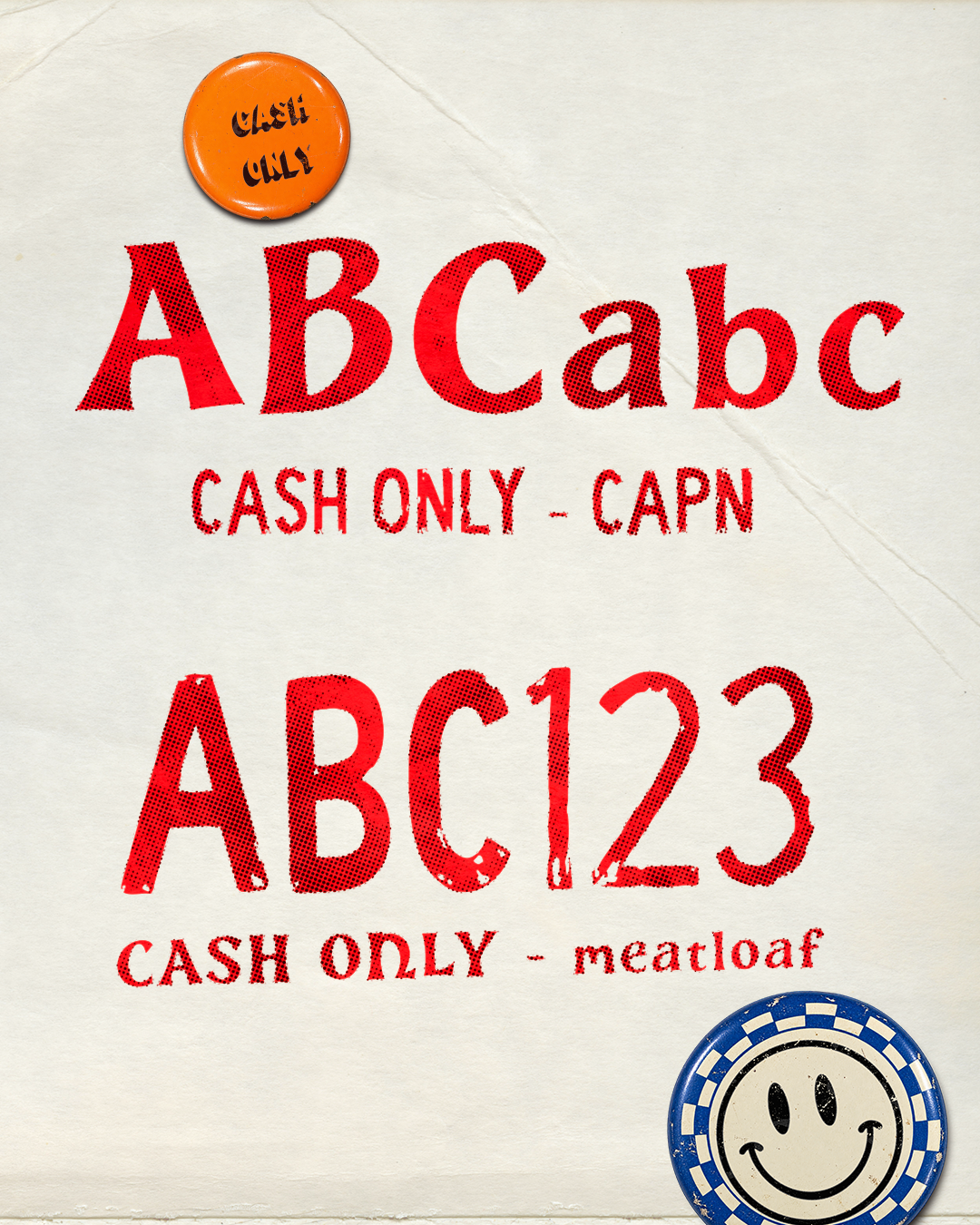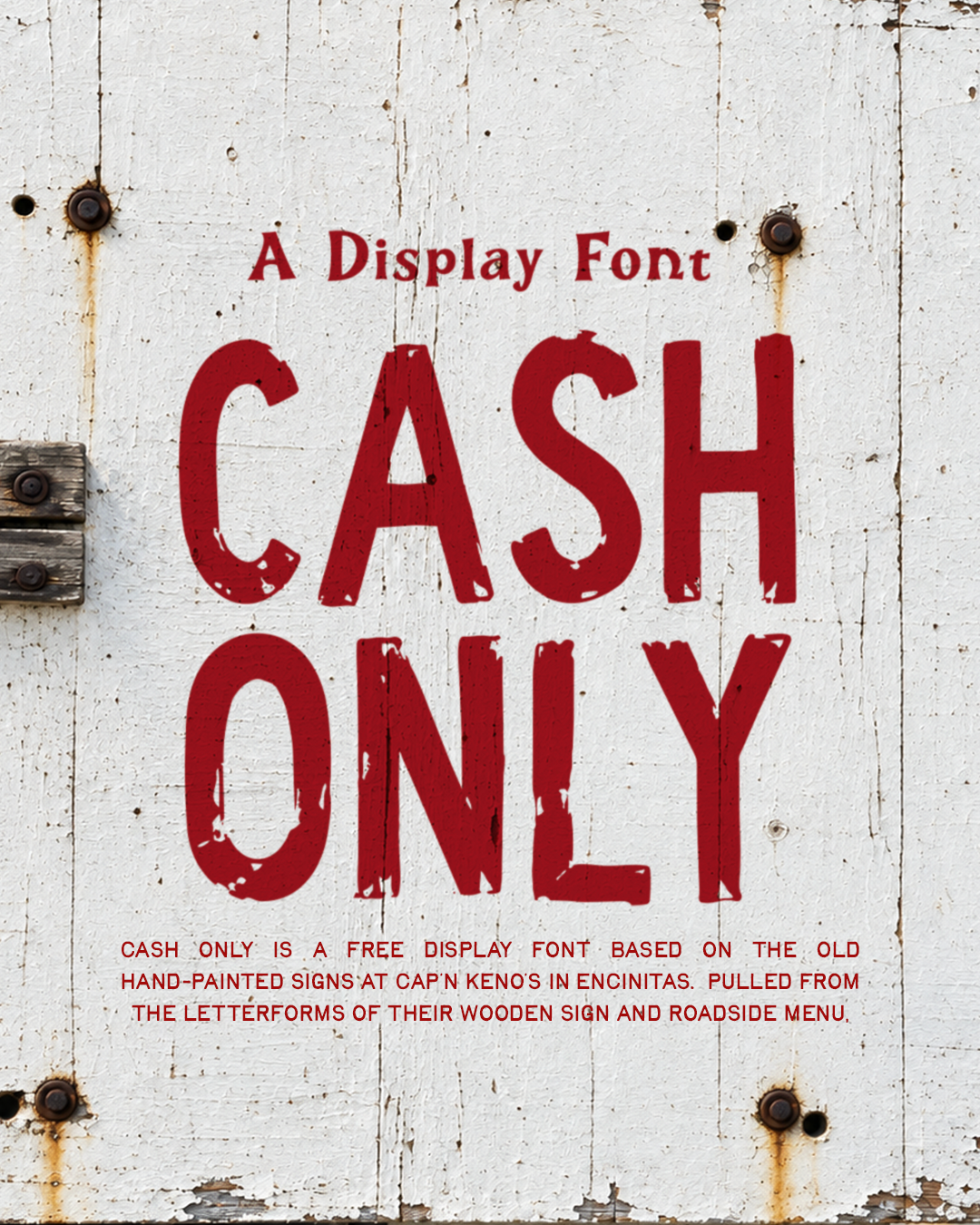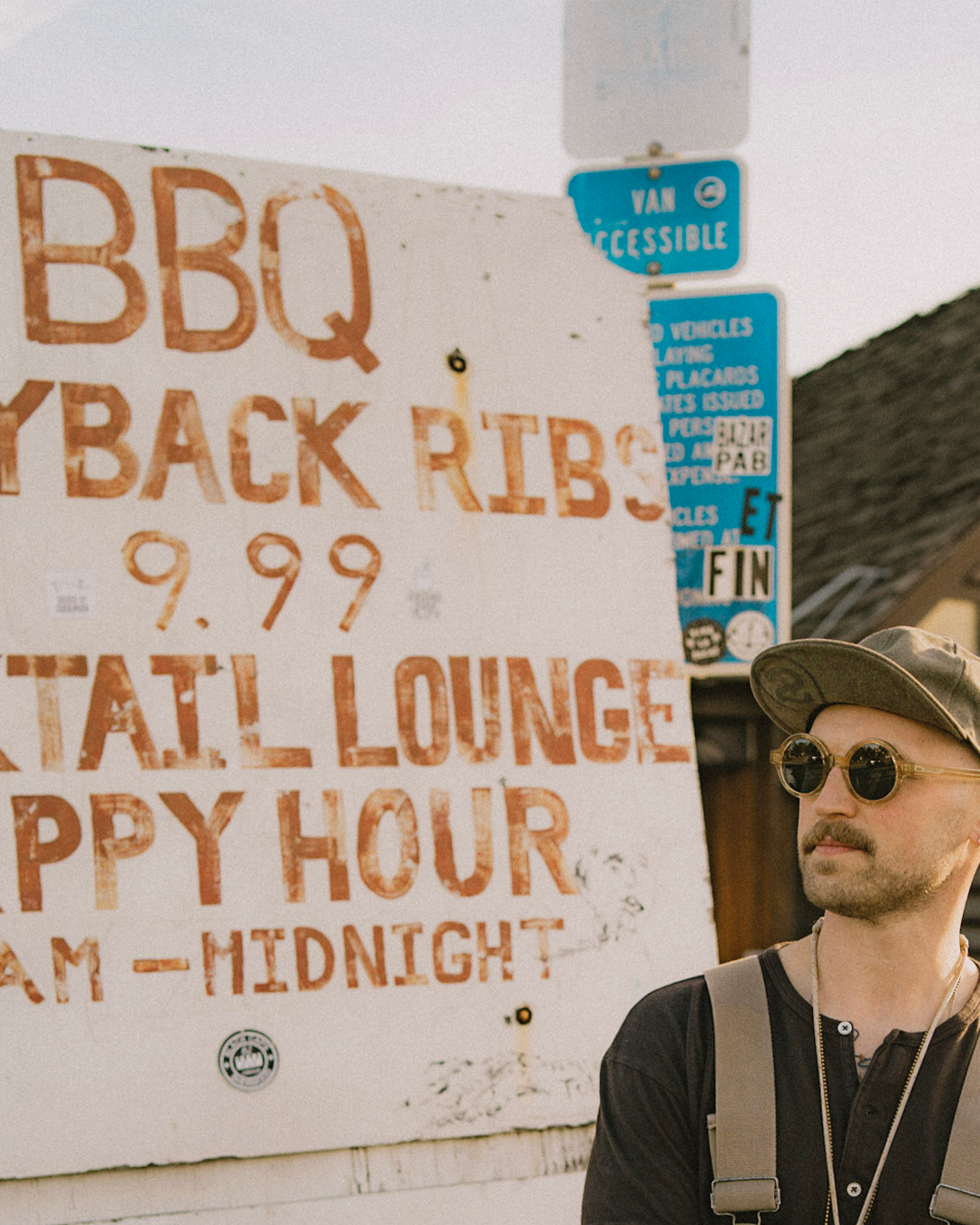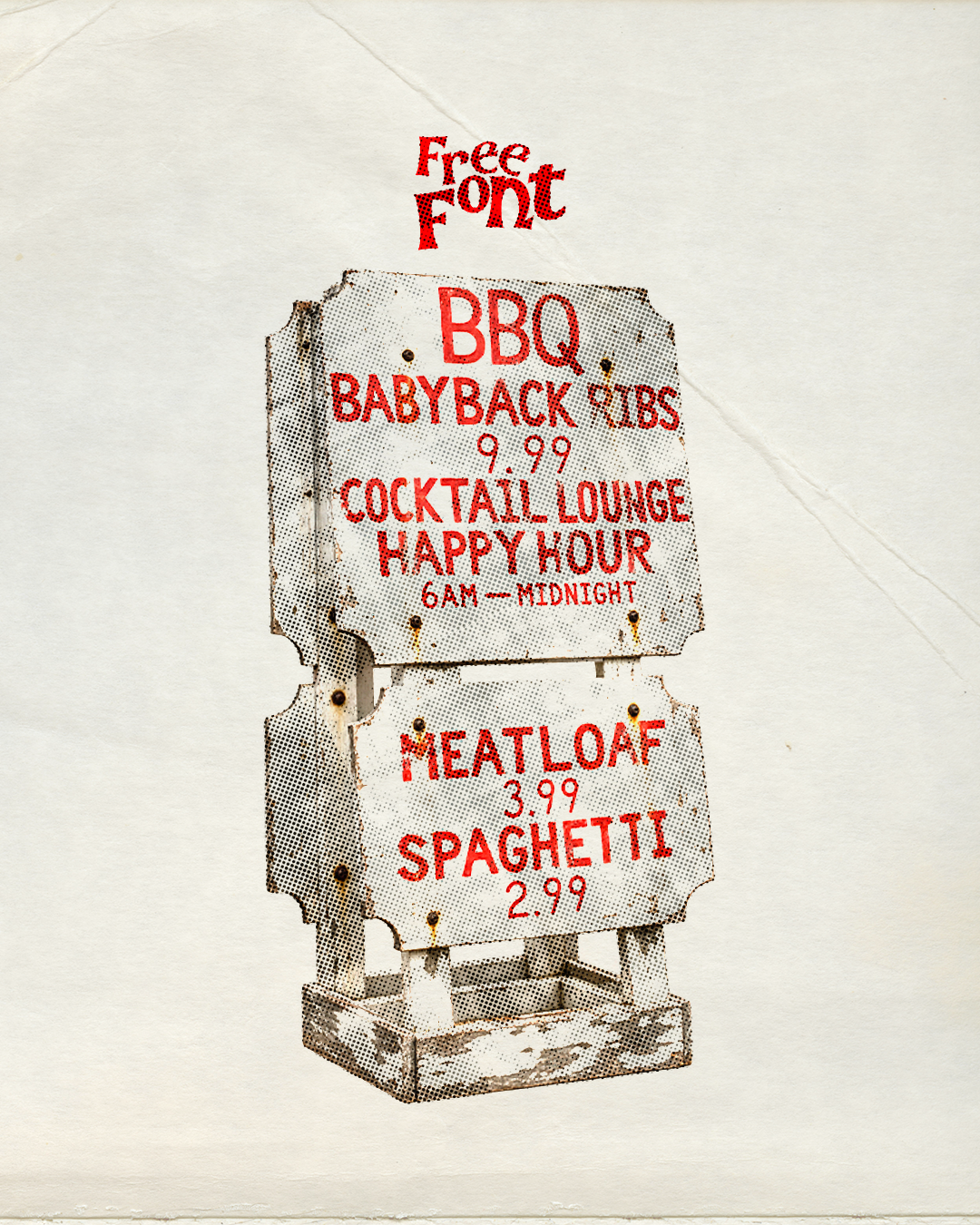
Cash Only is a free hand-drawn display font inspired by the old hand-painted signs at Cap’n Keno’s in Encinitas, California. I pulled the original letterforms from the restaurant’s wooden sign and roadside menu, then used those shapes as the foundation for building out the rest of each typeface.
The download includes three styles: Cash Only Cap’n, based on the lettering from the main wooden sign; Cash Only Meatloaf, based on the thinner, narrower lettering from the roadside menu; and Cash Only BBQ, another style pulled from the menu with its own set of hand-painted shapes and quirks.
I kept the strange proportions, inconsistent line weights, and imperfections that gave the original signs so much character. Each version is a little different, a little wonky, and intentionally imperfect.